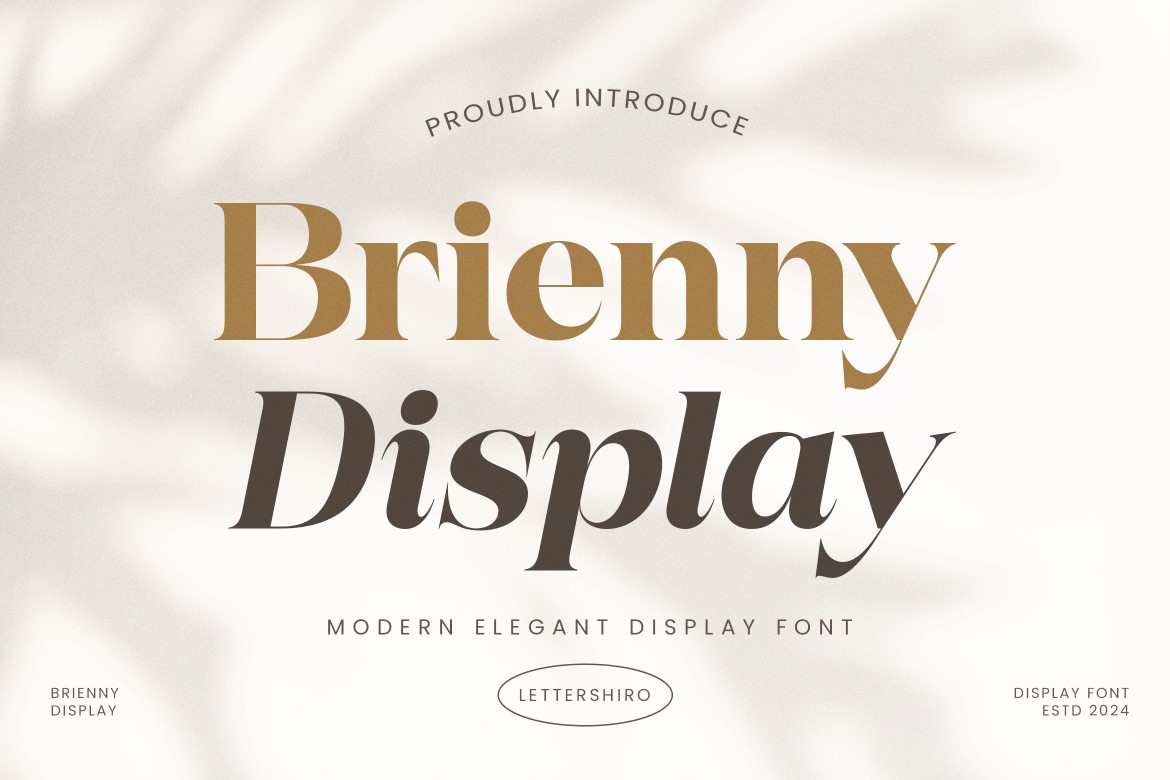
Introducing Brienny Display Font
We are thrilled to introduce Brienny, a modern and elegant serif font crafted to elevate your design projects. Brienny comes in two versatile styles: regular and italic, each meticulously designed to bring a touch of sophistication and contemporary flair to your work.
Features:
- Modern Look: Brienny boasts a sleek and stylish design, making it ideal for a wide range of modern applications.
- Versatile Styles: With both regular and italic styles, Brienny offers flexibility and adaptability, ensuring it fits seamlessly into various design contexts.
- Perfect for Text: The clear and legible characters make Brienny an excellent choice for body text, ensuring readability and aesthetic appeal.
- Ideal for Posters and Ads: Whether you’re designing eye-catching posters or compelling advertisements, Brienny’s bold and refined appearance will make your content stand out.
- Suitable for Modern Logos: Create striking and memorable logos with Brienny, adding a touch of elegance and professionalism to your brand identity.
- All About Modern Design: Brienny is crafted with contemporary design principles in mind, making it perfect for all aspects of modern design, from web to print.
Elevate your designs with the timeless beauty and versatility of Brienny. Whether you’re working on branding, editorial design, or promotional materials, Brienny is the perfect choice to add a sophisticated and modern touch to your projects.